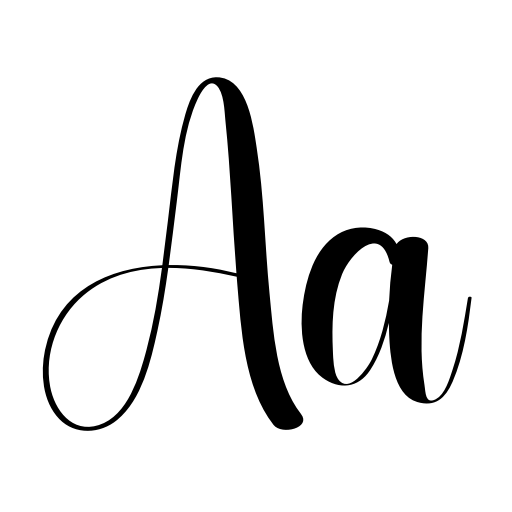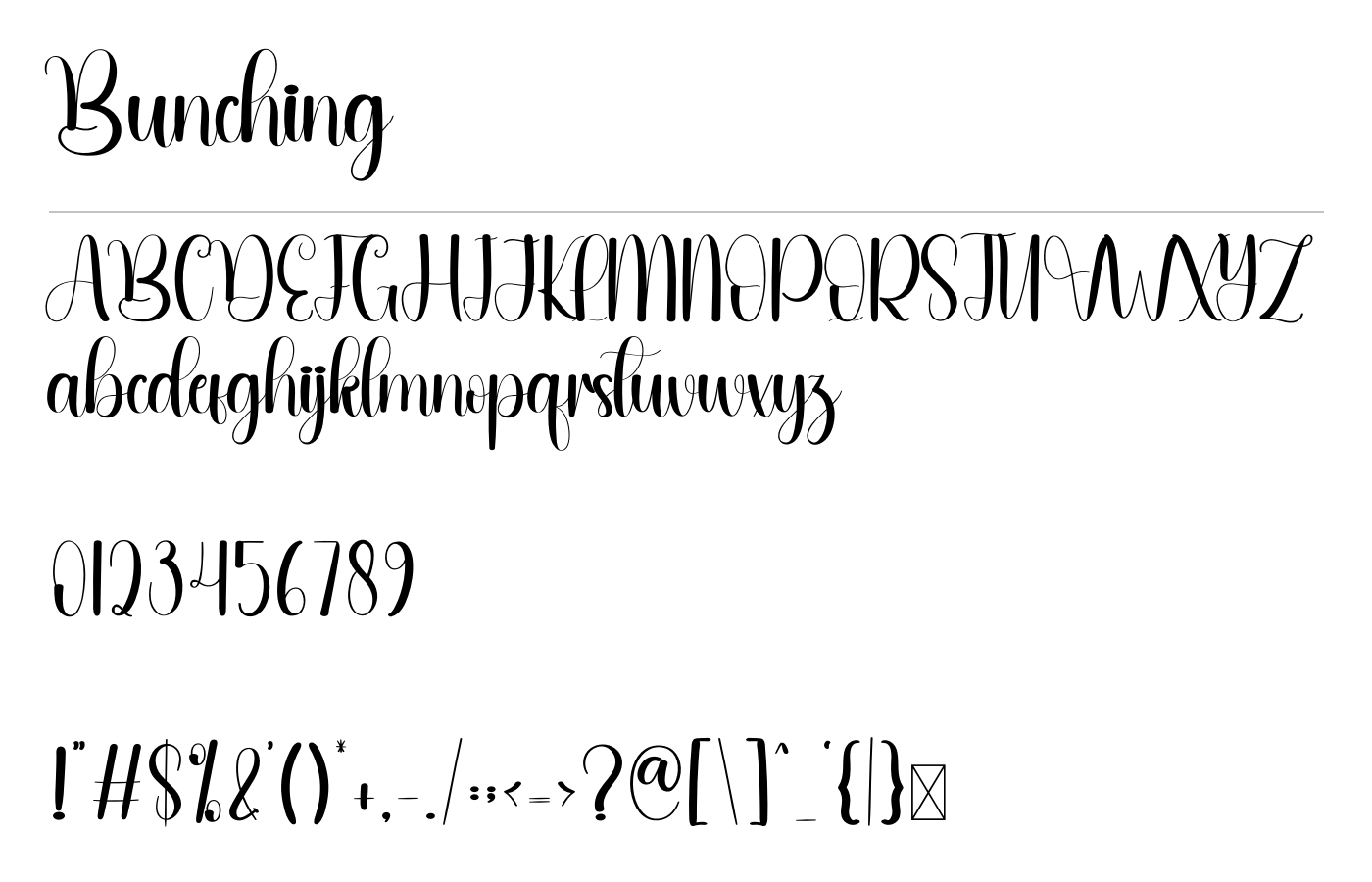
Bunching Font is a stylish and elegant script typeface with a modern flair, featuring tall, slender letterforms and high contrast strokes that give it a graceful, flowing appearance. Its playful yet refined curves and unique swashes make it perfect for fashion branding, invitations, and creative headlines where a touch of sophistication and personality is desired. This font works best in designs that aim to communicate elegance, charm, and a contemporary artistic vibe.
Bunching Font
About Bunching Font